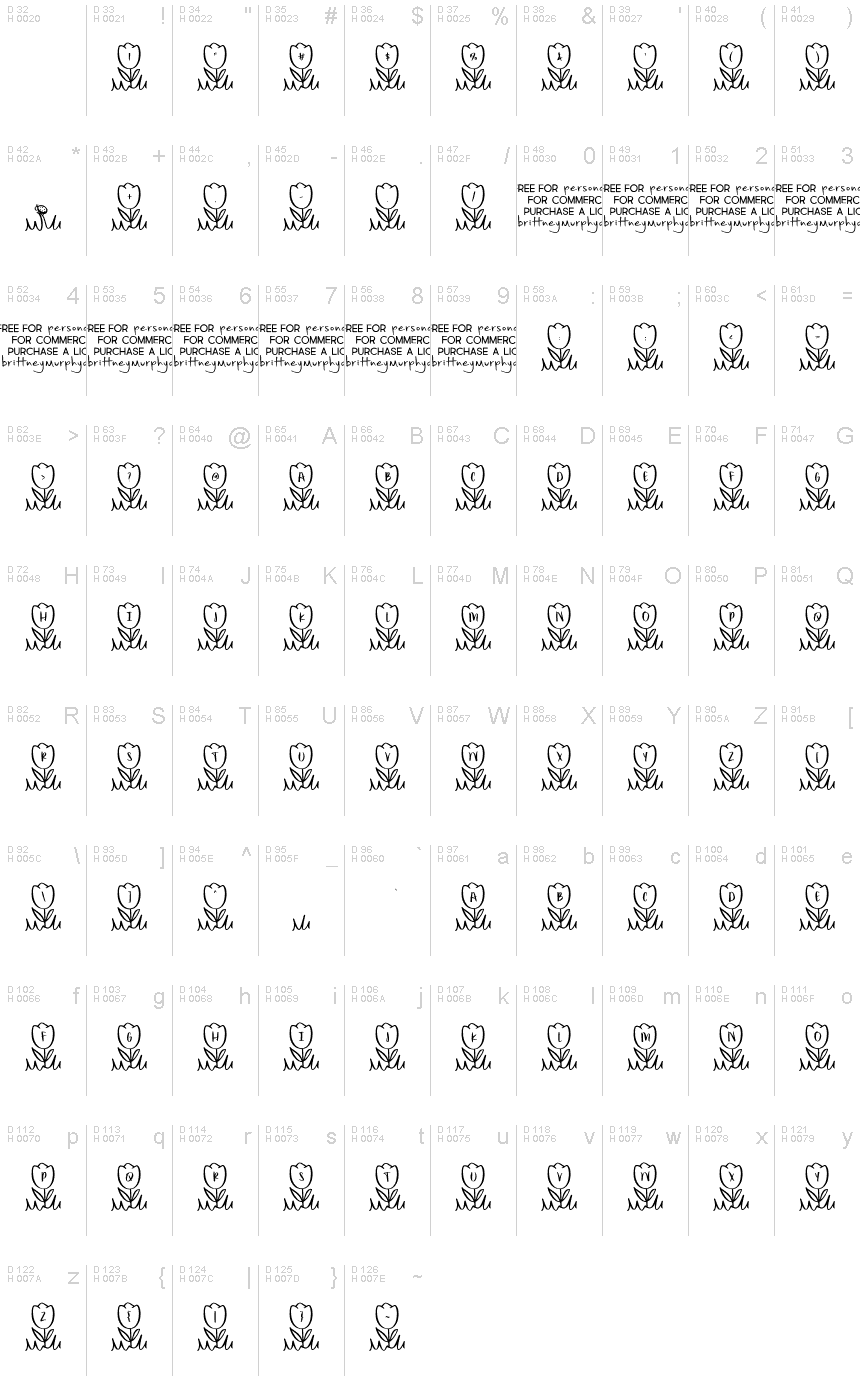
Tidy*Tulips
Introducing Tidy*Tulips, a light display font designed by Brittney Murphy. Its decorative flower style makes it perfect for adding a unique touch to your wedding invitations, blog headers, and other creative projects.
The Tidy Tulips font is a sweet picture font featuring tulips. Great for headlines for all your floral or springtime projects.
Special characters:
Use the asterisk (*) for a ladybug on a blade of grass.
Use the underscore (_) for a blank space with grass.